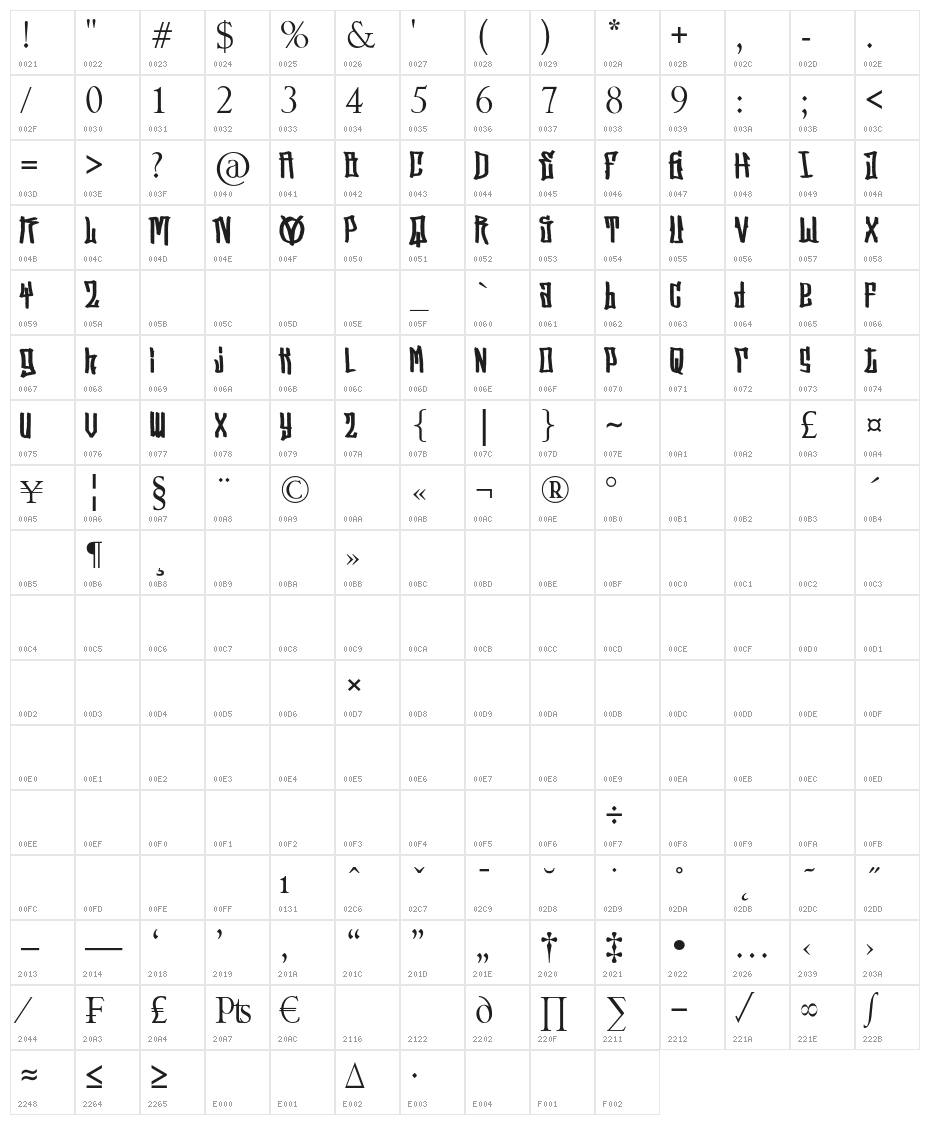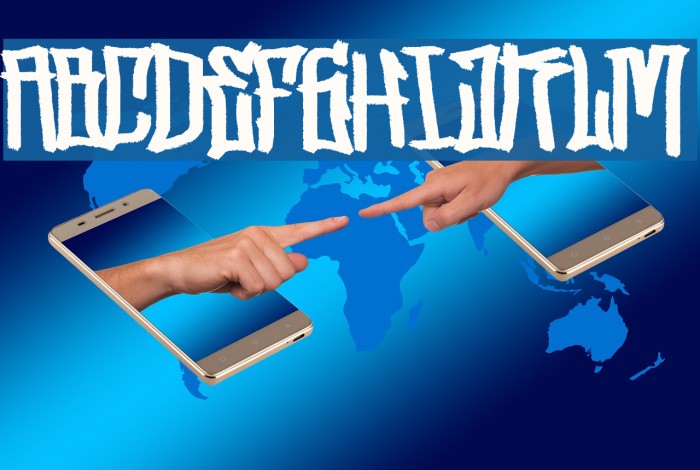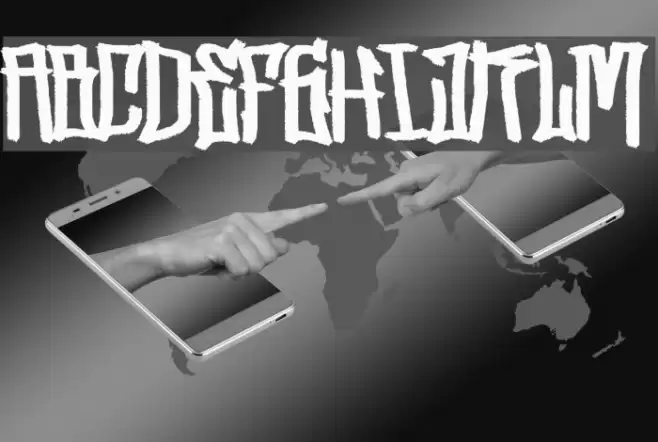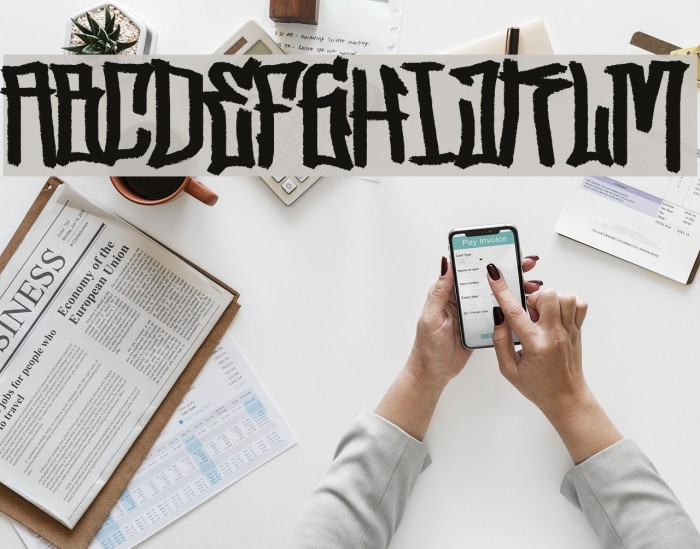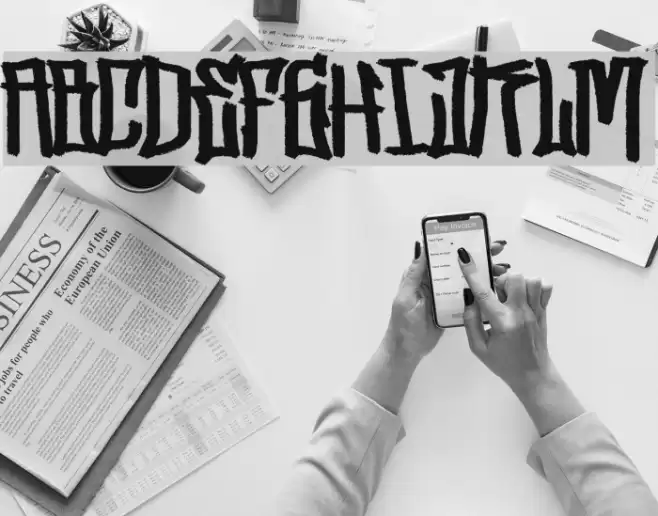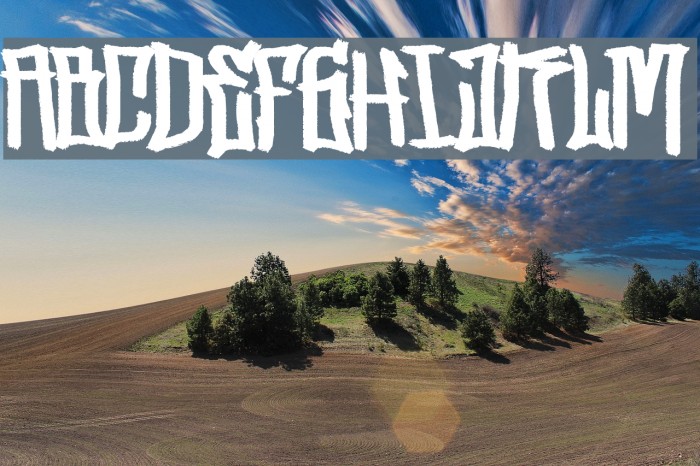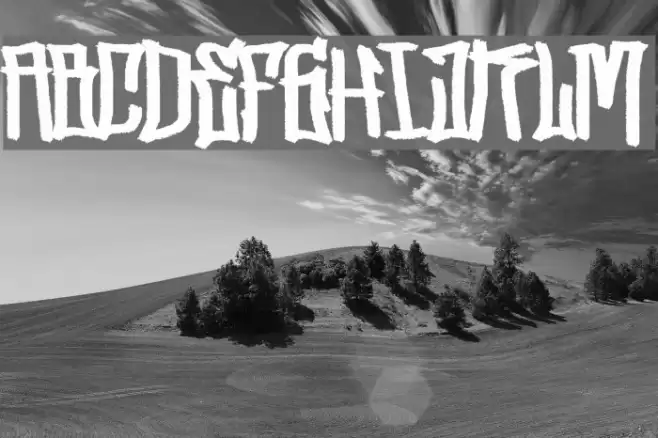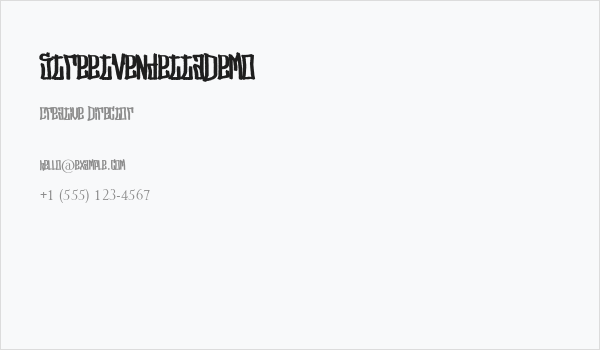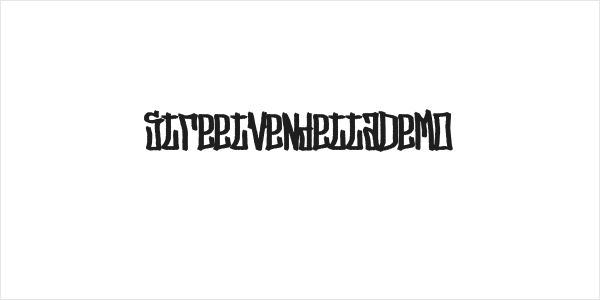
StreetVendettaDemo Font
StreetVendettaDemo Description
This font features a bold, graffiti-inspired style with a strong urban influence. The characters are uniquely crafted with sharp edges and a slightly distorted appearance, giving them a rebellious and energetic feel. The uppercase letters are particularly striking, with exaggerated vertical lines and angular forms. The lowercase letters maintain the same edgy aesthetic, while the numerals and special characters complement the overall design with their consistent boldness and distinctive shapes. This font is perfect for projects that require a bold statement and a touch of street art flair.
| Overall Style | Modern, Urban, Rebellious |
| Proposed Projects | Ideal for street art designs, music album covers, urban-themed posters, and edgy branding projects. |